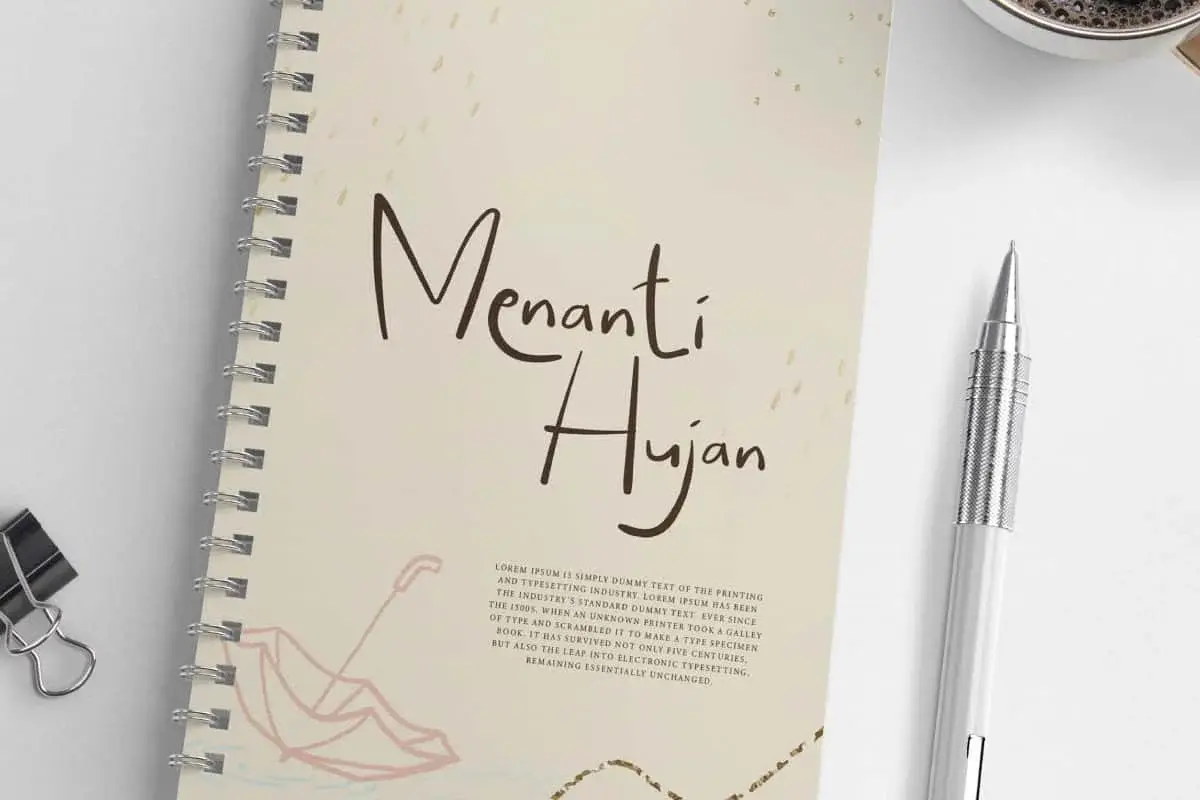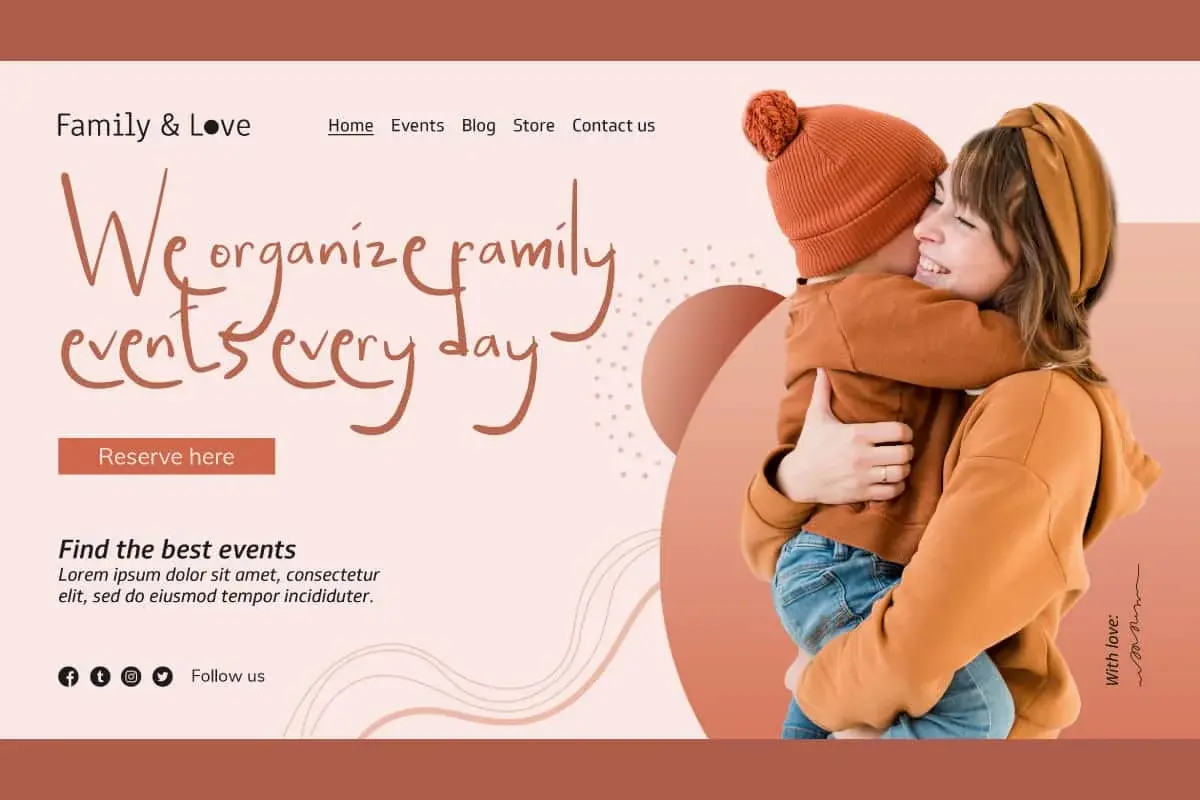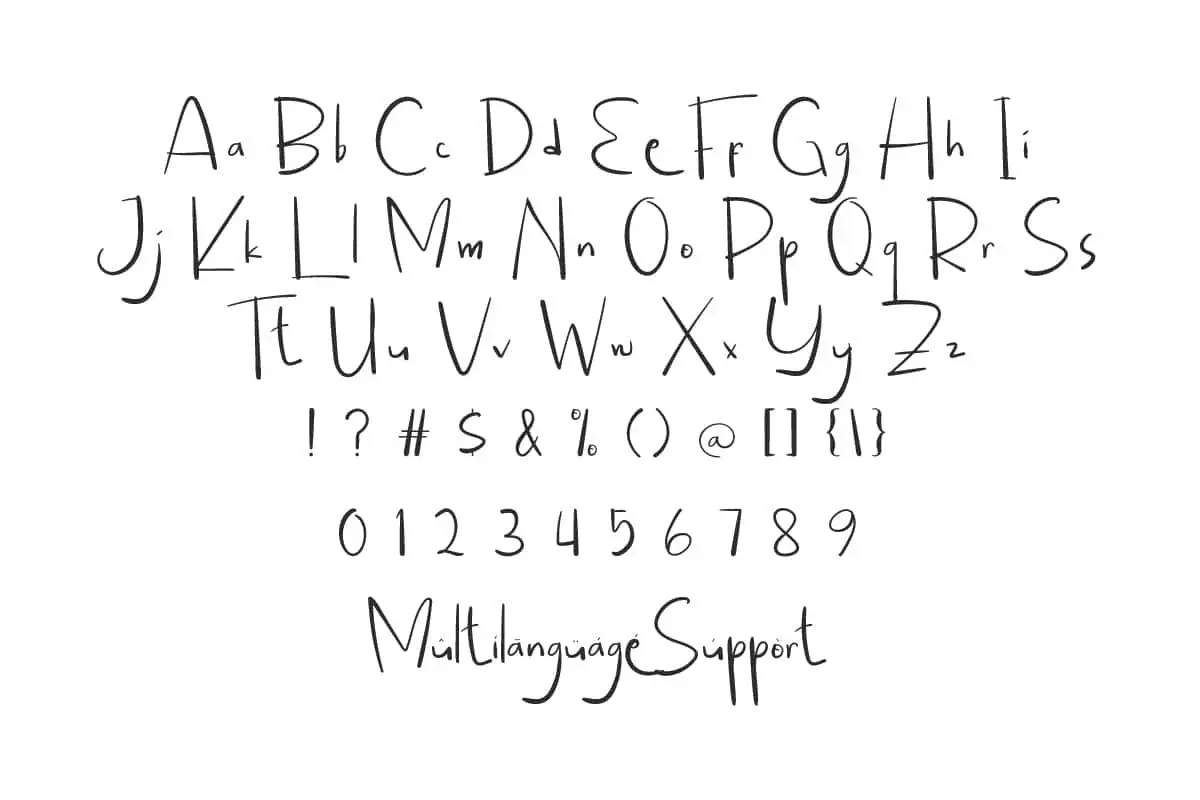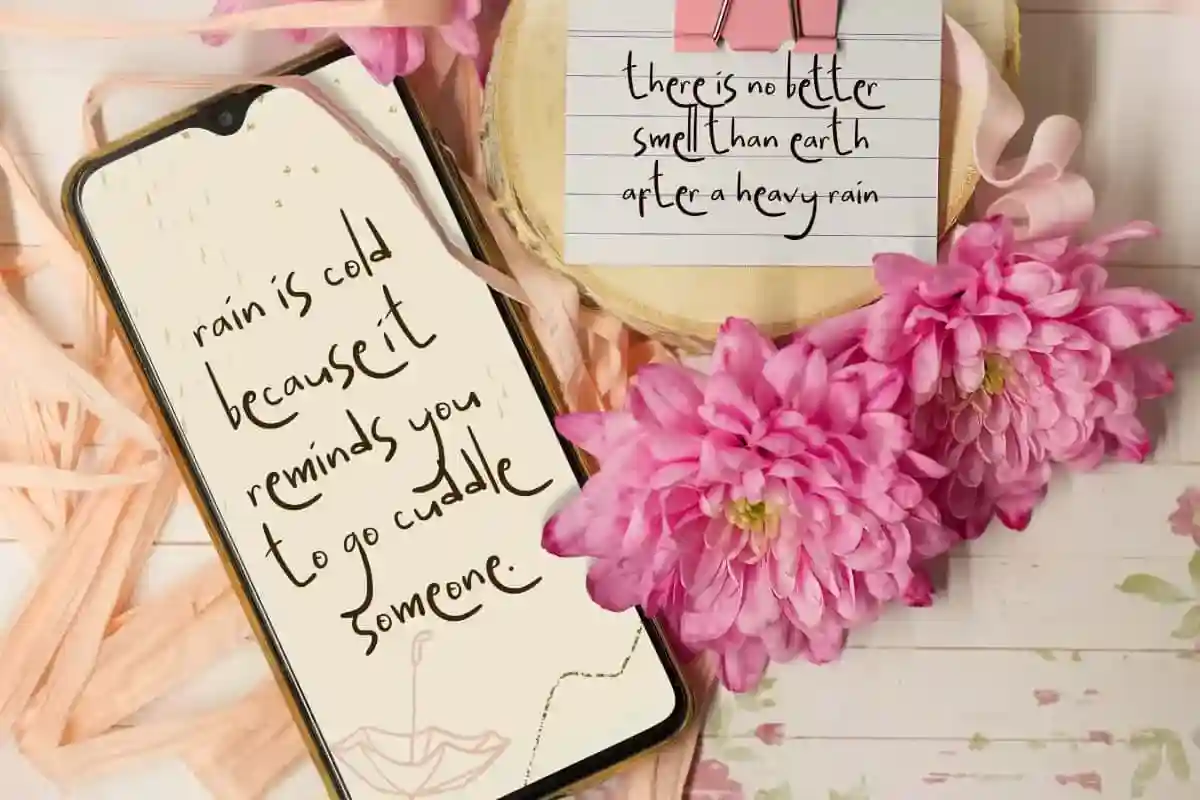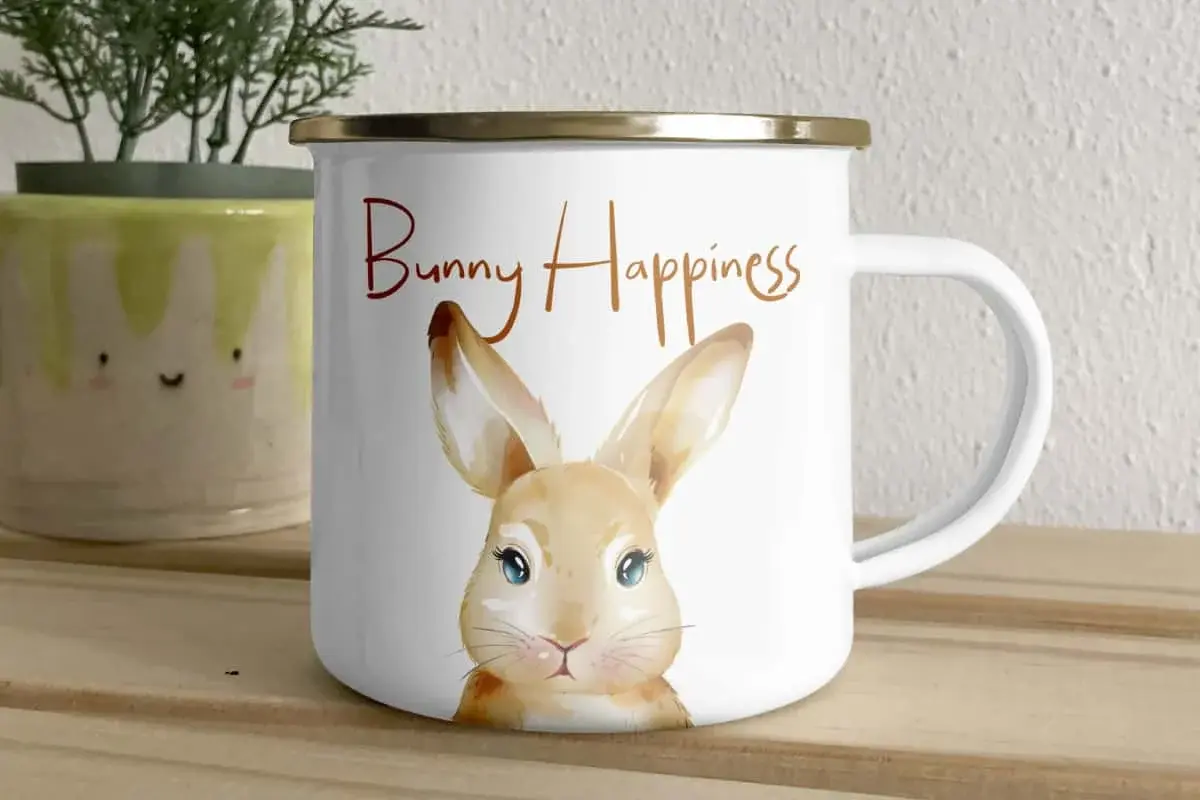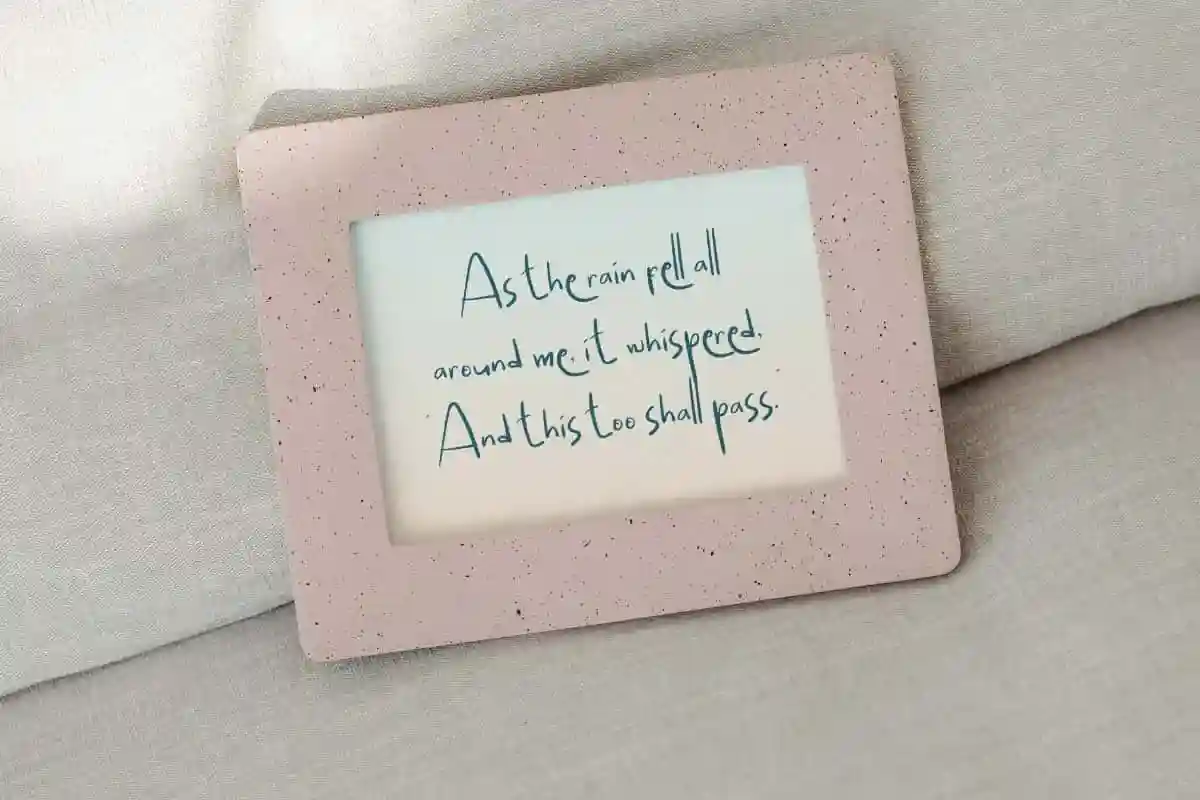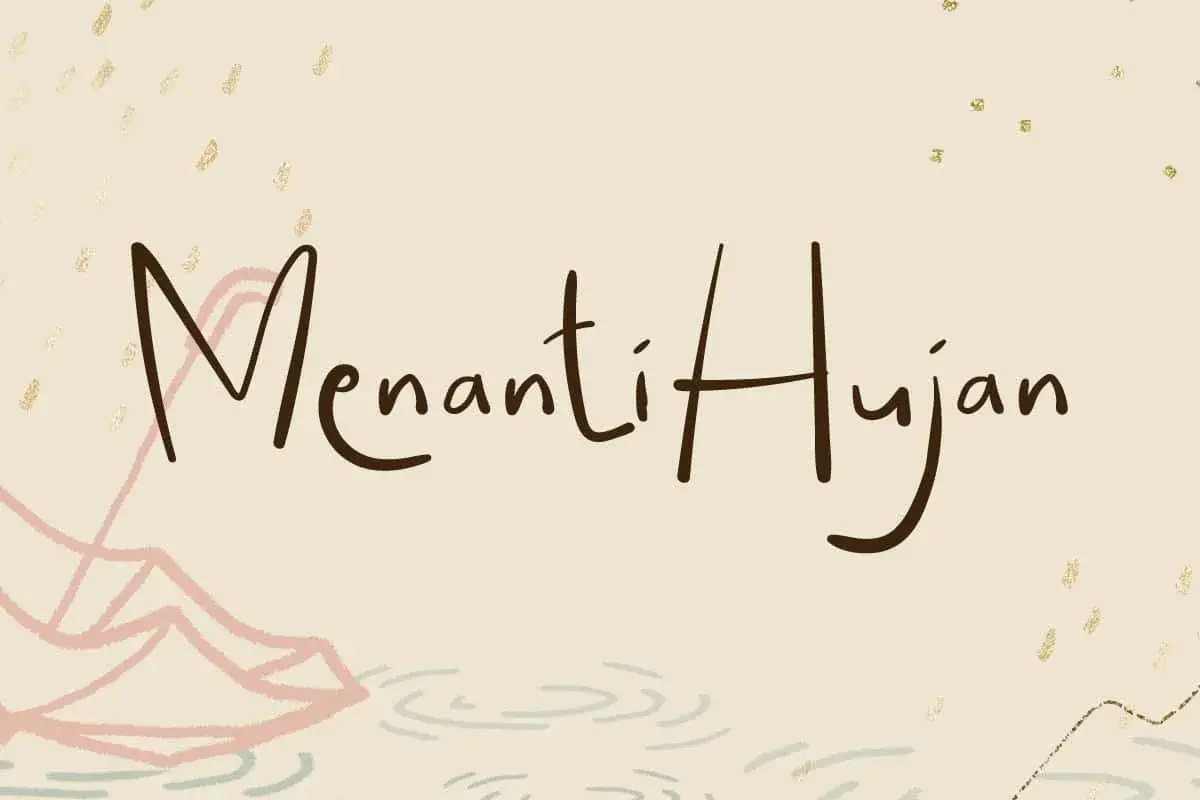
Menanti Hujan Font is a sweet and delicate handwriting, suitable for any creative design. Designed to be fun and more stylish making it stand out from the crowd!
Menanti Hujan Font is an adorable handwriting font that is very comfortable to look at. This will give maximum results to the creative designs you create. Suitable for apps, banners, billboard, blogs, brochure, cover, greeting cards, headers, headline, invitation, label tag, logos, mockup, poster, printed materials, printing, quotes, stationery, stickers, template, titles, watermarks, website, and more.
Menanti Hujan Font includes a complete set of Basic Uppercase and Lowercase Characters, Numbers, Punctuation Marks and Symbols. The funny letter characters are created from unbalanced emphasis without losing the fun touch. Perfect for accessories and gifts, animation, cafes, clothing brand, education, digital marketing, fashion, florist, graphic design, handicraft, home furniture, printing, publishing, toys, writer, etc.